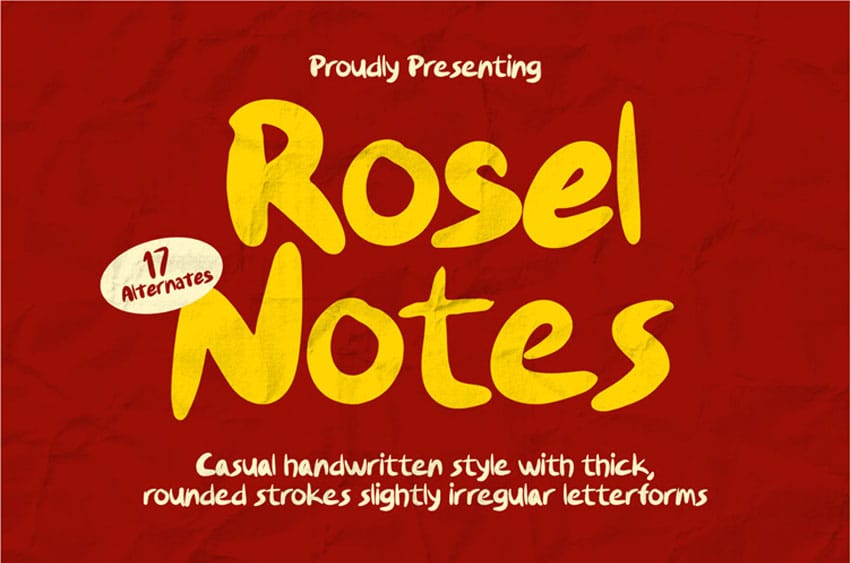
Rosel Notes Font is a casual handwritten font designed to capture a natural, friendly, and effortless writing style. Featuring smooth strokes, relaxed curves, and authentic handwritten letterforms, it is perfect for branding, social media, invitations, packaging, notes, and creative projects that need a personal touch.
This font brings warmth and approachability while maintaining clarity and readability in both print and digital use. With ligatures, alternates, and multilingual support, Rosel Notes allows you to create expressive and charming typography with ease.
- Casual Handwritten Style – Natural and friendly letterforms
- Ligatures & Alternates – Enhanced typographic flexibility
- Multilingual Support – Supports multiple languages